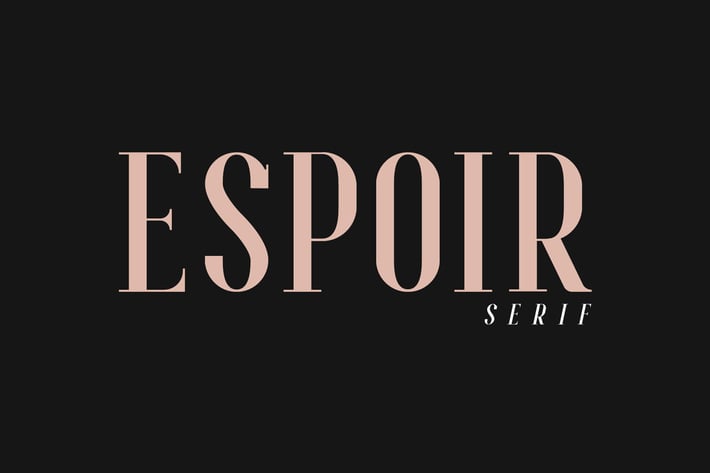
Espoir Serif - Font Family
Introducing New Font : Espoir Serif Font Family
Espoir Serif Font Family is a modern serif font family whose design refers us to the style of transitional serifs. The distinctive features of Espoir Serif Font Family are the relatively low contrast of strokes, the slightly squarish shapes of round characters and the emphasized businesslike nature.
In the process of working on Espoir Serif Font Family, we have significantly revised the initial idea and expanded the areas of possible font application, while maintaining the original spirit of the project. Despite the large number of display details, the typeface looks great in a small point size, and also when it is used in large text arrays.
1. All Caps Typefaces
2. Standard Ligatures
4. Accents (Multilingual characters) (AÀÁÂÃÄÅCÇDÐEÈÉÊËIÌÍÎÏNÑOØÒÓÔÕÖUÙÜÚÛWYÝŸỲŸÆŒßÞ)